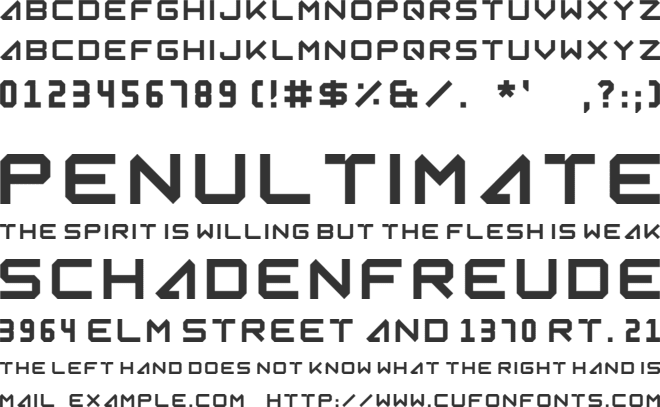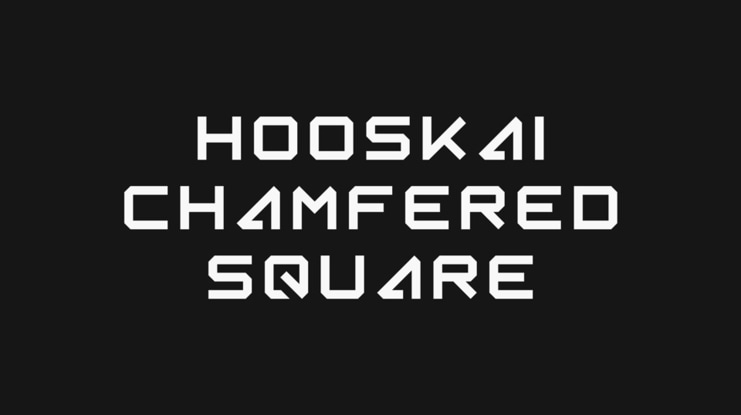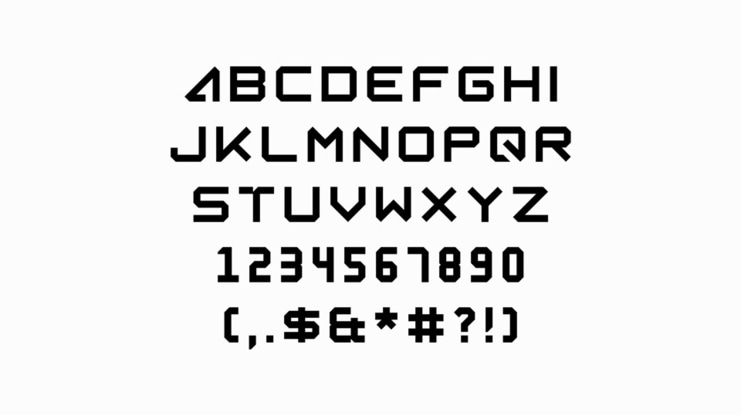
Hooskai Chamfered Square Font
Hooskai Chamfered Square is a bold, angular, and distinctive display font designed by SiberiaHusky.
Its defining characteristic is the square-shaped letterforms with chamfered (beveled) edges, creating a unique fusion of classic typography and modern geometric aesthetics.
This design exudes structured elegance and a sophisticated edge, adding a touch of modern geometry to your projects.
The bold forms and sharp angles ensure your text makes a strong visual impact that commands attention.